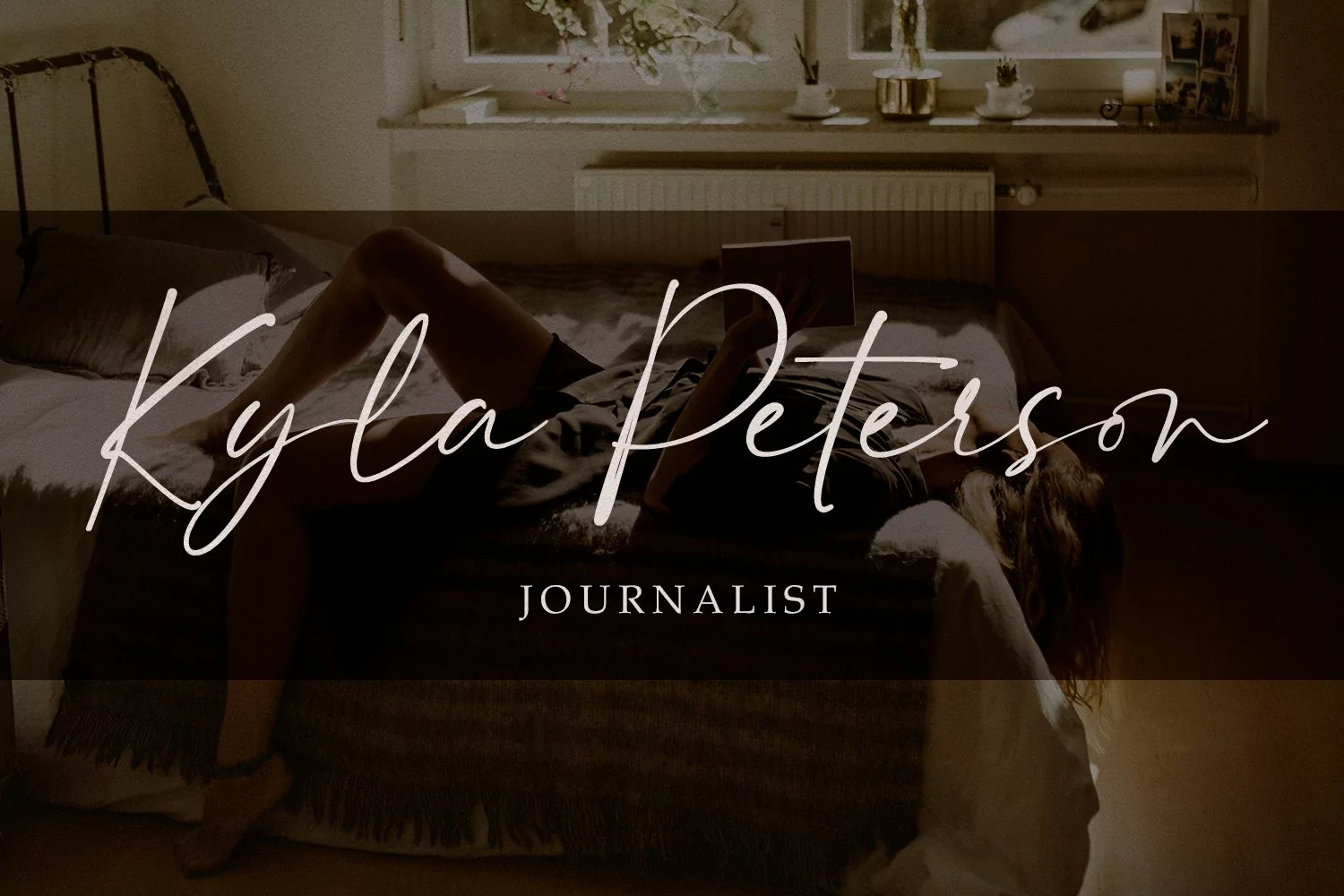
Give your designs an authentic handcrafted feel. "Bierang Signature Font" is perfectly suited to signature, stationery, logo, typography quotes, magazine or book cover, website header, clothing, branding, packaging design and more.
Ligatures: Bi, an, er, ar, on
Bierang